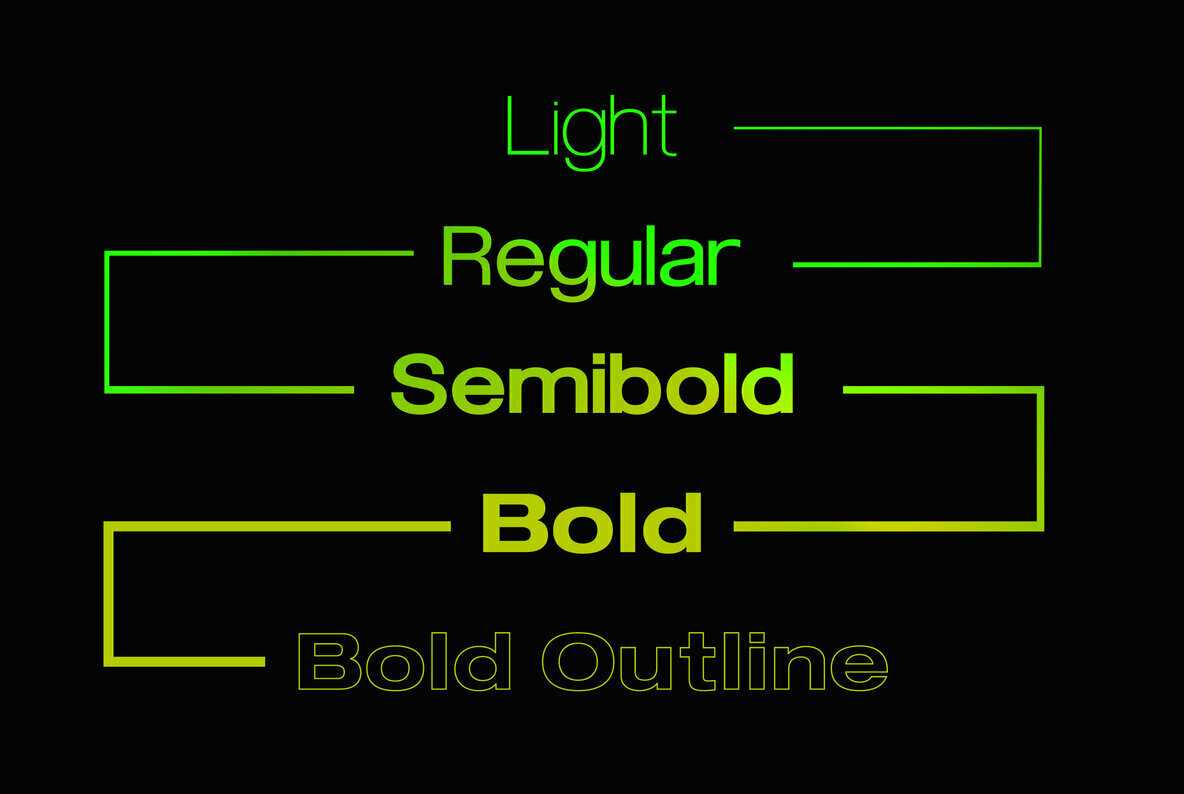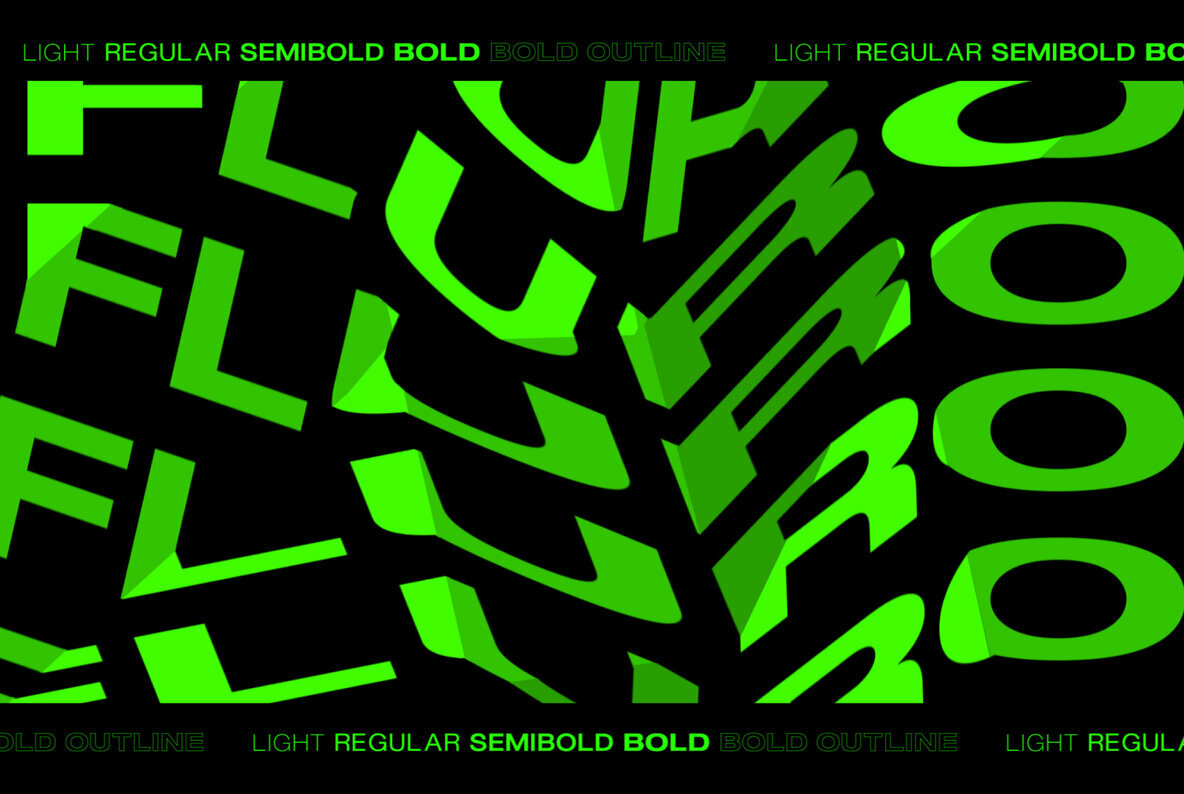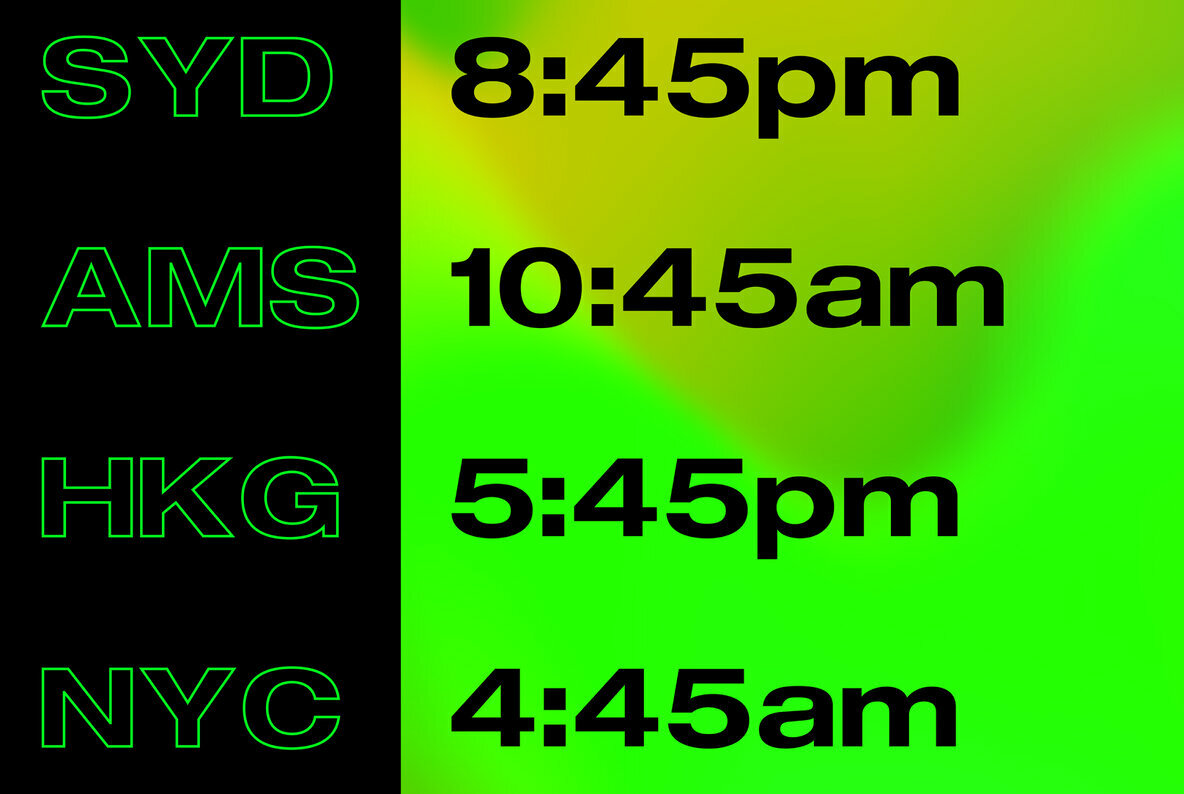
FLURO Font
Fluro offers a modern take on the traditional sans serif, infusing minimalism into every setting. Designed by Kazer Studio, this typeface embodies sleek precision across four distinct weights: Light, Regular, Semibold, and Bold. It is further enhanced by a unique Bold Outline variant, providing additional flexibility for diverse design requirements. Features:Fluro: A Contemporary Sans Serif Hybrid